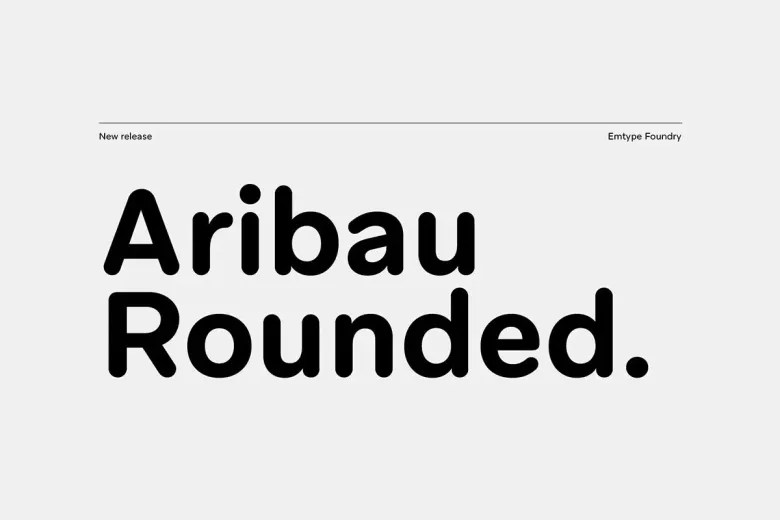
Aribau Rounded Font
Aribau Rounded is a sophisticated round sans-serif typeface crafted with the needs of financial institutions in mind. Building upon the elegance and clarity of Aribau Grotesk, this font introduces smooth, rounded curves that add a touch of warmth without compromising its professional and serious demeanor.
With its balanced design, Aribau Rounded excels in applications requiring both accessibility and formality, making it ideal for annual reports, user interfaces, and various branding needs. The font family offers 16 distinct styles, allowing for a wide range of typographic expressions.